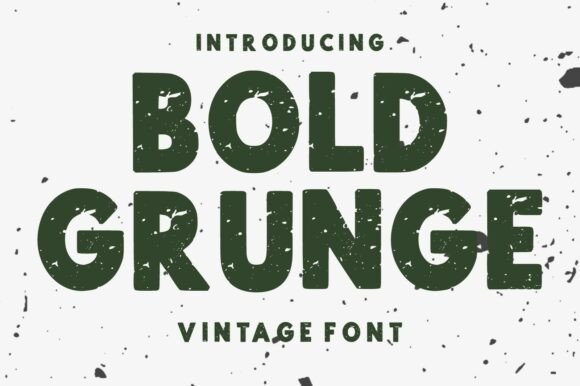
The Power of Bold Grunge: Unleashing a Vintage Distressed Display Font
I’ll never forget the time I was working on a retro-themed poster project, searching for the perfect font to capture the essence of a bygone era. My client wanted something bold, rugged, and eye-catching, but I was struggling to find a font that fit the bill. That’s when I stumbled upon Bold Grunge, a strong vintage distressed display font that instantly caught my attention. With its rough textures and worn letterforms, it was like a breath of fresh air – a perfect blend of classic retro character and modern boldness.
An Honest Review of Bold Grunge
What I Love About Bold Grunge ✨
- 💥 **Instantly recognizable vintage style**: Bold Grunge delivers a powerful, distressed look that’s perfect for creating eye-catching designs.
- ✅ **Highly versatile**: This font is suitable for a wide range of projects, from posters and branding to logos, packaging, t-shirt designs, and streetwear graphics.
- 🎨 **Unique texture and character**: The grunge effect gives Bold Grunge a one-of-a-kind personality that sets it apart from other fonts.
- 👍 **Easy to read**: Despite its distressed look, Bold Grunge remains surprisingly legible, making it perfect for headlines and titles.
- ⚠️ **Limited use in body text**: Due to its bold and distressed nature, Bold Grunge is best suited for headlines and titles, rather than body text.
- 🤔 **May require adjustments for kerning**: As with any font, you may need to tweak kerning to achieve optimal results, especially when using all caps or large font sizes.
A Practical Guide to Using Bold Grunge
The Backstory of Bold Grunge
Legend has it that Bold Grunge was inspired by the DIY punk rock scene of the 1980s. Its creator, a font designer with a passion for vintage typography, wanted to capture the raw energy and rebellious spirit of that era in a font. And so, Bold Grunge was born – a powerful, distressed display font that’s perfect for designers, crafters, and creative hobbyists who want to add a touch of vintage grit to their designs.
| Font Name | Bold Grunge Font |
| Author | Infinity art Studio |
| What type of projects is Bold Grunge best suited for? | Bold Grunge is perfect for posters, branding, logos, packaging, t-shirt designs, and streetwear graphics. |
| Is Bold Grunge easy to read? | Despite its distressed look, Bold Grunge remains surprisingly legible, making it perfect for headlines and titles. |
| Can I use Bold Grunge for body text? | While Bold Grunge is best suited for headlines and titles, it’s not ideal for body text due to its bold and distressed nature. |
| Does Bold Grunge support OpenType features? | Yes, Bold Grunge supports OpenType features, including glyphs and stylistic alternates, which can add more character and variety to your design. |